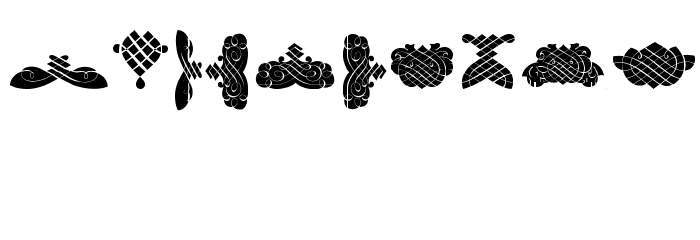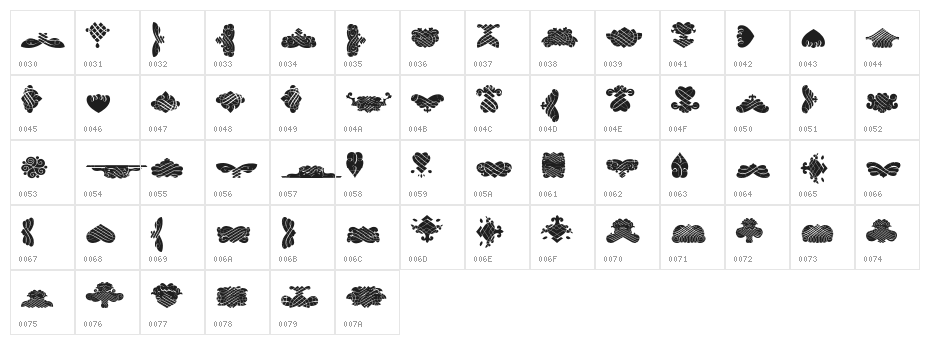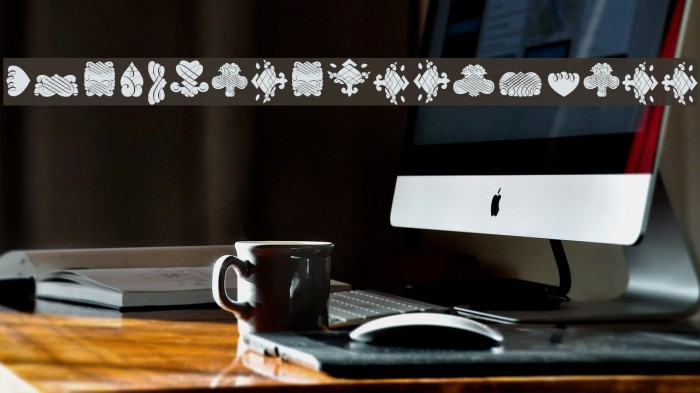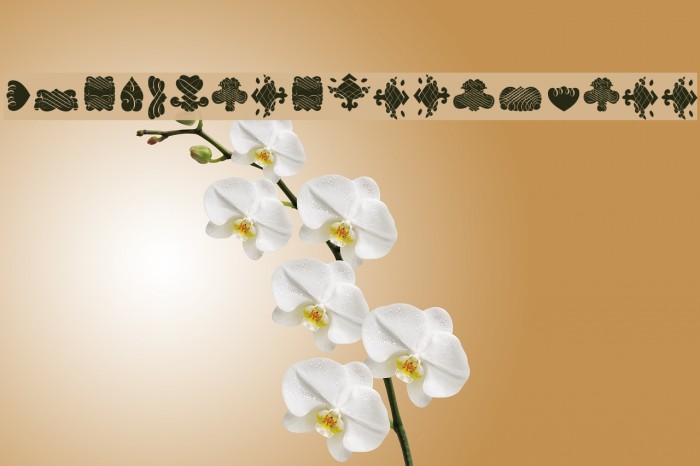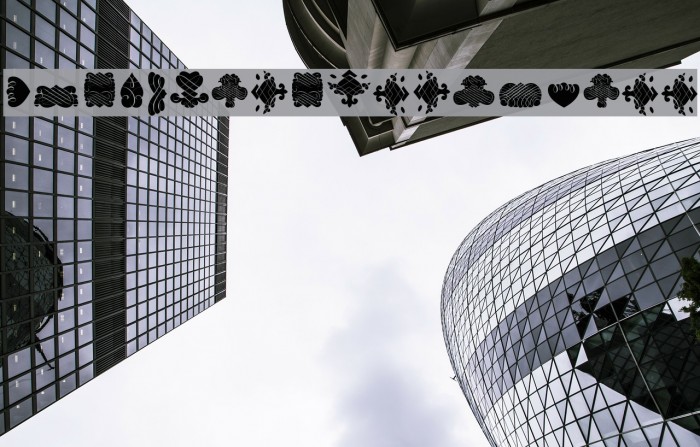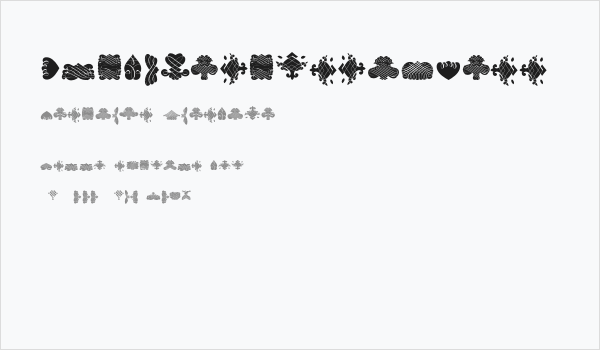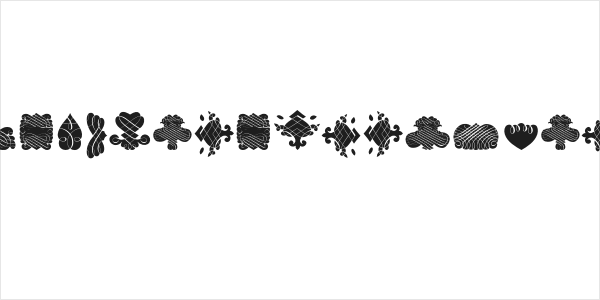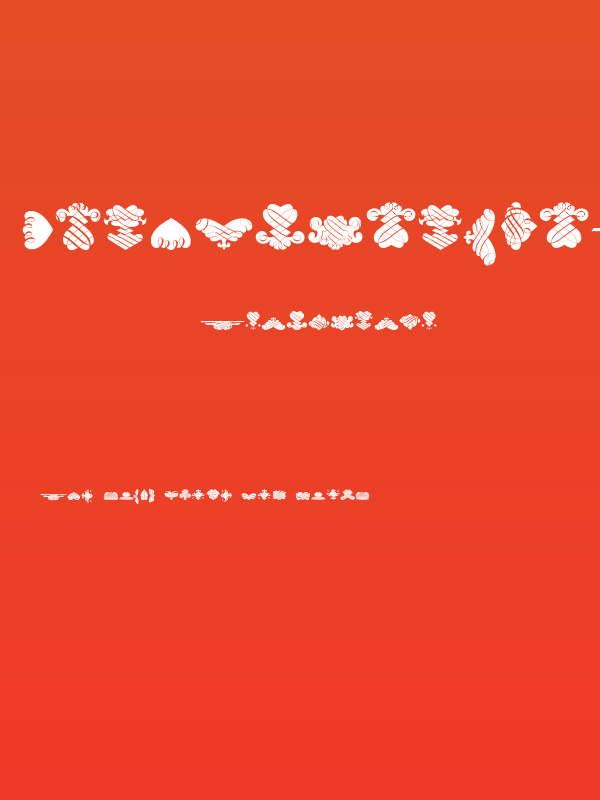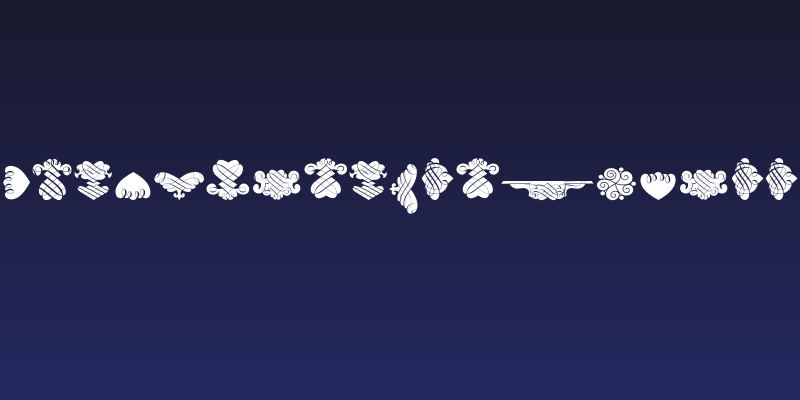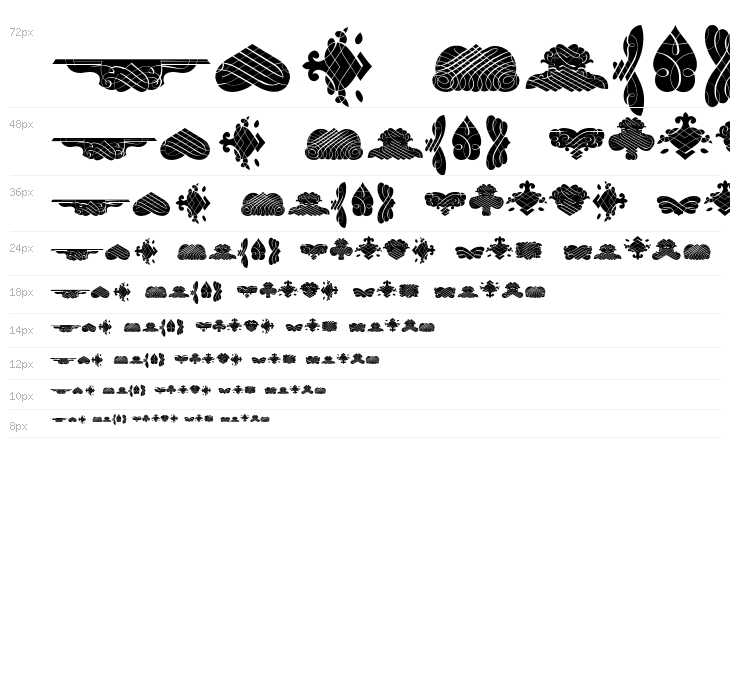
BlackOrnamentsFree Font
BlackOrnamentsFree Description
This set of intricate black ornaments features a variety of decorative elements, each with a unique design. The motifs include swirls, curls, and abstract shapes, all rendered in a bold, solid black. These ornaments are characterized by their elaborate and ornate style, making them ideal for embellishing designs that require a touch of elegance and sophistication. The patterns are consistent throughout, with a focus on symmetry and balance, providing a cohesive look across the set. The designs are versatile, suitable for a range of applications from digital to print media.